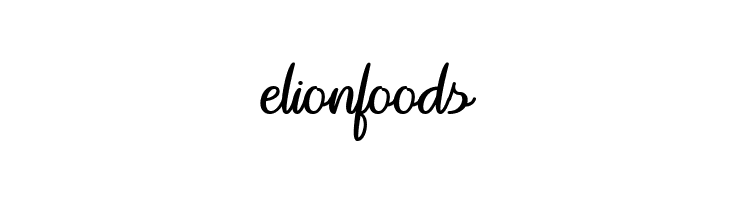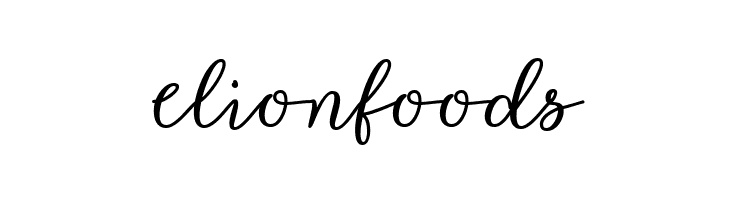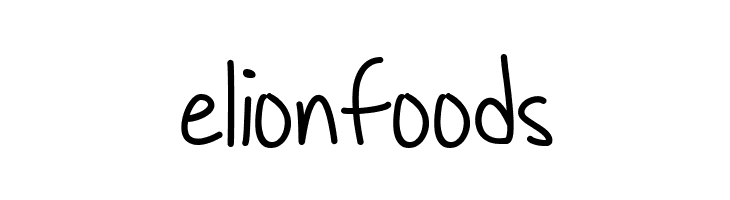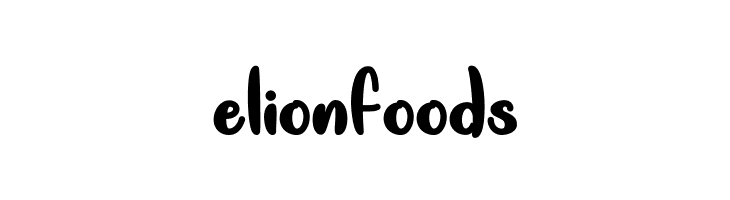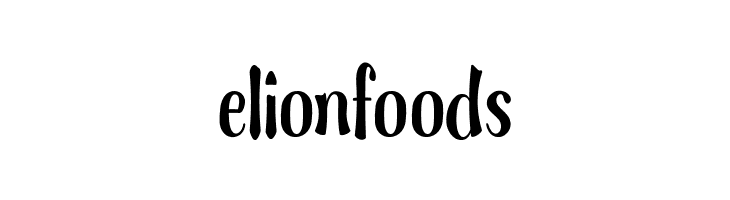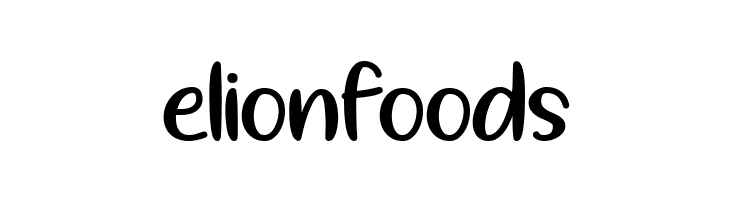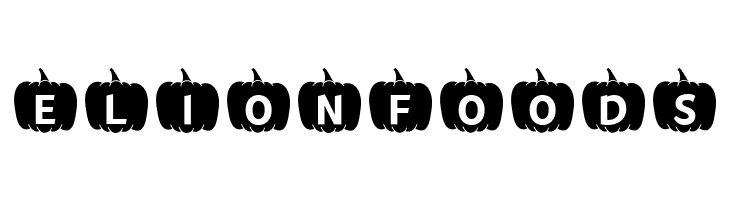
A modern, fluid script font with elegant, flowing lines and a slight slant.
An elegant script font with intricate swirls and flourishes, perfect for romantic and sophisticated designs.
A playful, casual handwritten font with smooth, flowing lines.
A jagged, thorn-like font perfect for Halloween themes.
A playful, bold, handwritten-style font with rounded characters.
A whimsical, playful font with flowing curves and a hand-drawn appearance.
A playful, casual handwritten font with smooth, rounded edges.
A bold, playful handwritten font with a casual and friendly style.
A bold, dripping font with a spooky, oozing effect.
A playful font with characters inside pumpkin silhouettes, perfect for autumn themes.